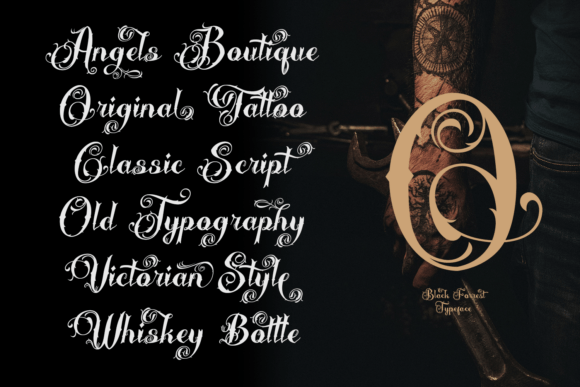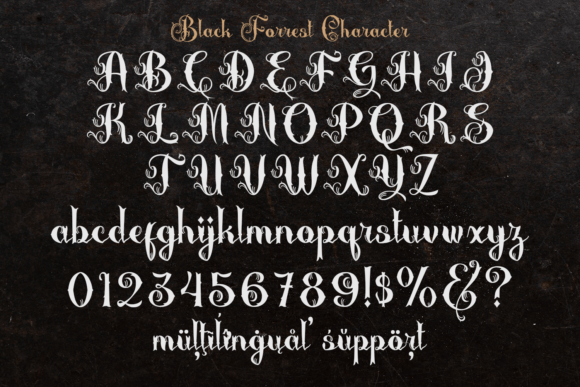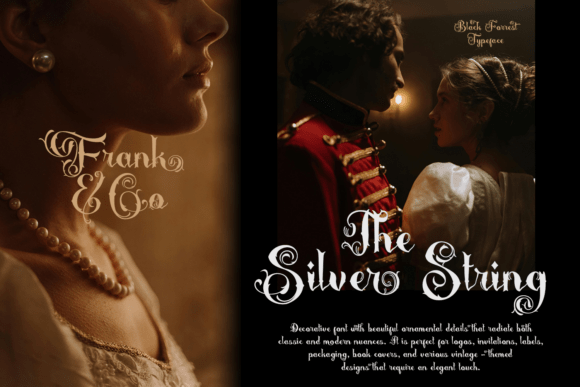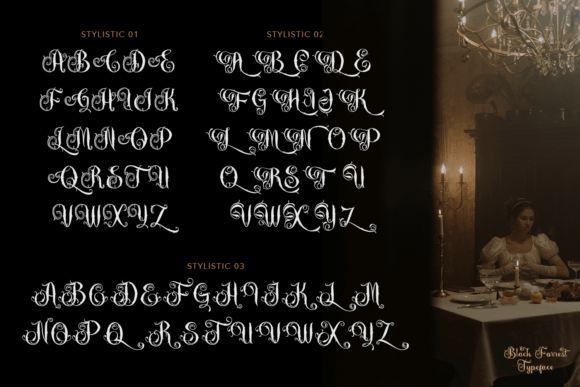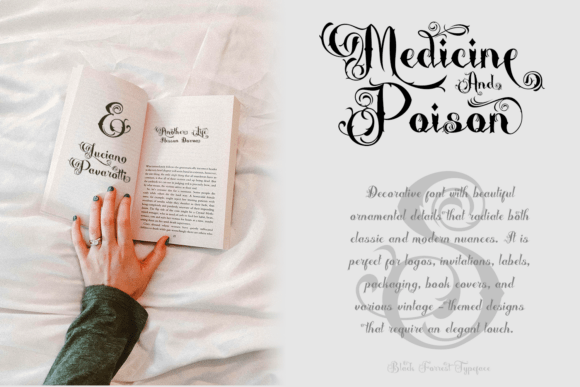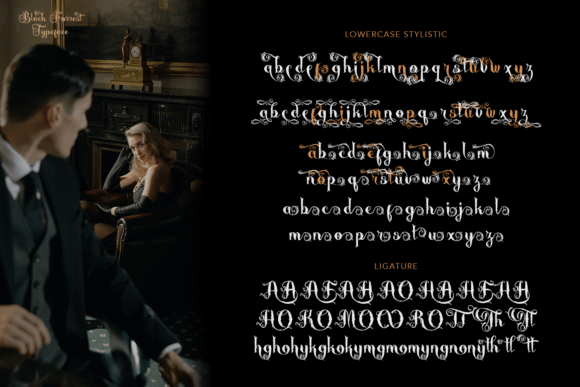
Unlocking Whimsy: The Enchanting World of Black Forrest Font
Imagine you’re browsing through a dusty antique shop, and suddenly, your eyes land on a vintage book with an intricately designed cover. The delicate lettering, the ornate flourishes, and the elegant curves transport you to a bygone era. This is the magic of the Black Forrest Font – a lavish decorative typeface that evokes a sense of nostalgia and wonder.
Black Forrest Font is more than just a font – it’s a tool for designers to craft visual storytelling with sophistication. With over 550 intricate glyphs, this font offers endless possibilities for creative expression. Whether you’re designing a logo, invitation, or book cover, Black Forrest Font is an ideal choice for those seeking a vintage and classic aesthetic that exudes elegance and luxury.
As a designer, you’ll appreciate the versatility and functionality of Black Forrest Font, which comes in Regular and Italic styles, multilingual support, and a range of ornamentation possibilities. Get ready to unlock the whimsy of the Black Forrest Font and elevate your designs to new heights of beauty and sophistication.
Key Features of Black Forest Font
- Font Family: Black Forest Font is a unique and elegant serif font family designed by Font Diner, with multiple weights and styles available.
- Unique Characteristics: Black Forest Font features a distinctive blend of medieval and modern elements, with intricate details and ornaments that add a touch of elegance and sophistication to any design.
Designer Review: Black Forrest Font
Overall, the Black Forrest Font has a certain charm to it, but it’s a mixed bag. ✨ Here are some of the things that work well:
- Unique aesthetic: The font’s Gothic-inspired design and quirky, handwritten feel make it stand out in a crowded market.
- Good legibility: Despite its ornate appearance, Black Forrest Font is still relatively easy to read, especially in larger sizes.
- Great for creative projects: The font’s expressive, artistic feel makes it perfect for creative projects, such as book covers, posters, and social media graphics.
However, there are also some limitations to consider: ⚠️
- Limited font weights: The font only comes in a few weights, which can make it difficult to achieve the desired level of contrast in certain designs.
- Poor scalability: The font can become pixelated and lose its quality when scaled up or down, which may not be ideal for certain applications.
- Not suitable for body text: While Black Forrest Font can be effective for headings and titles, it’s not the best choice for body text due to its ornate and distracting design.
In conclusion, the Black Forrest Font is a solid choice for creative projects, but it may not be the best fit for every design scenario. With some careful consideration and planning, it can be a valuable addition to any designer’s toolkit.